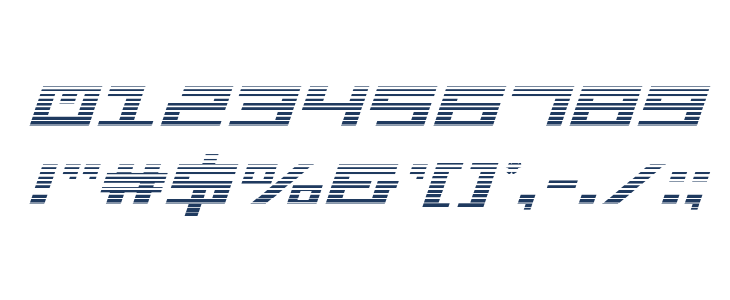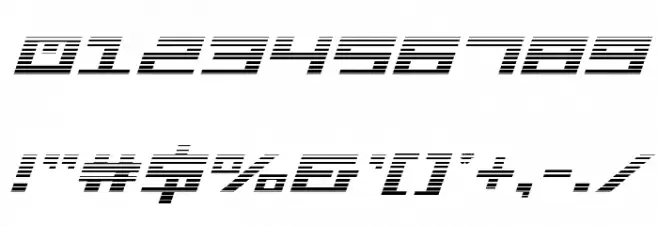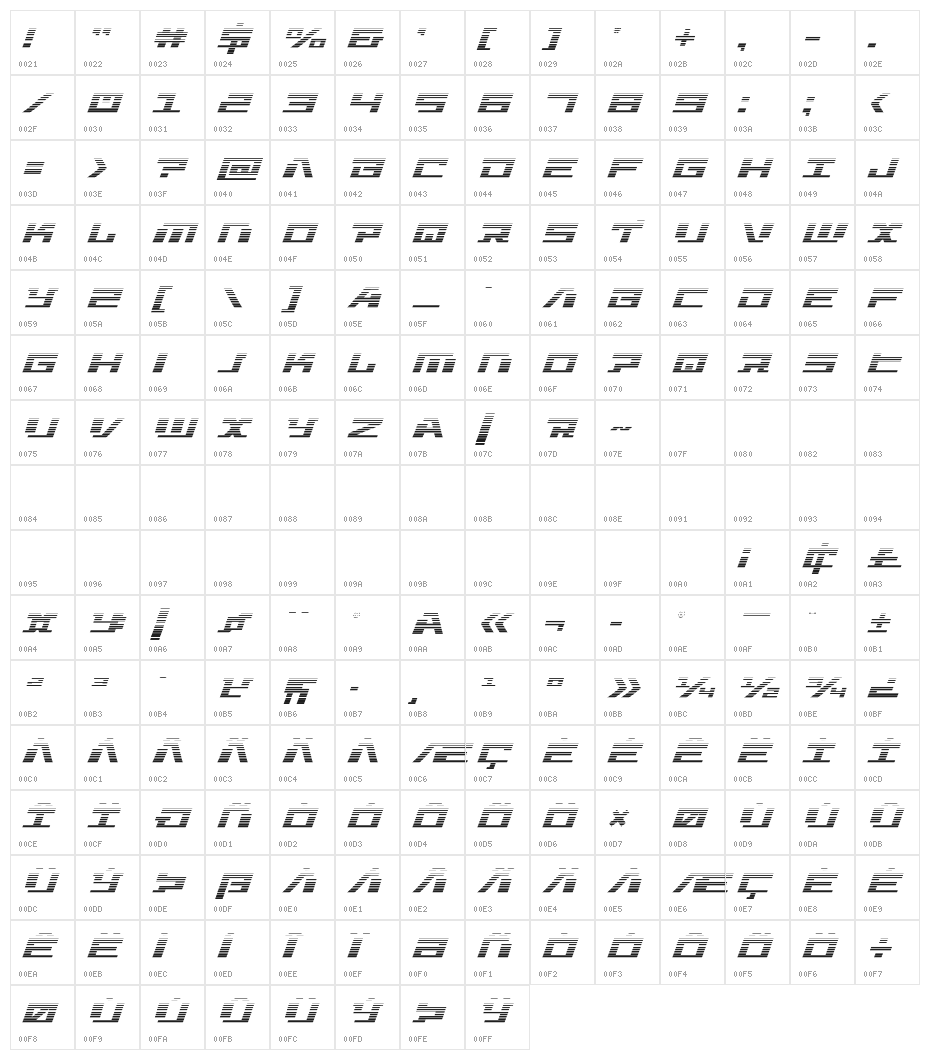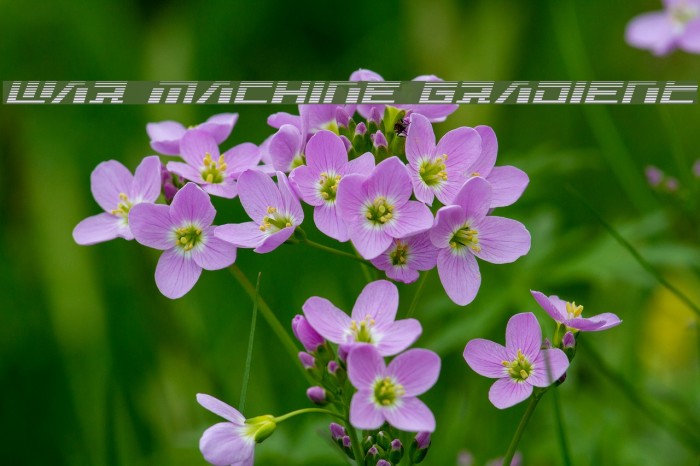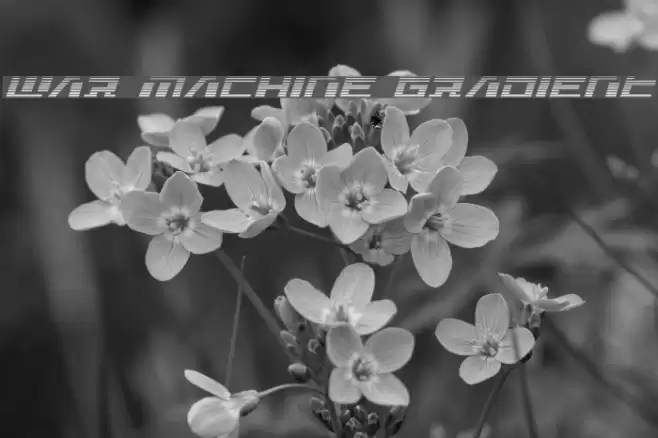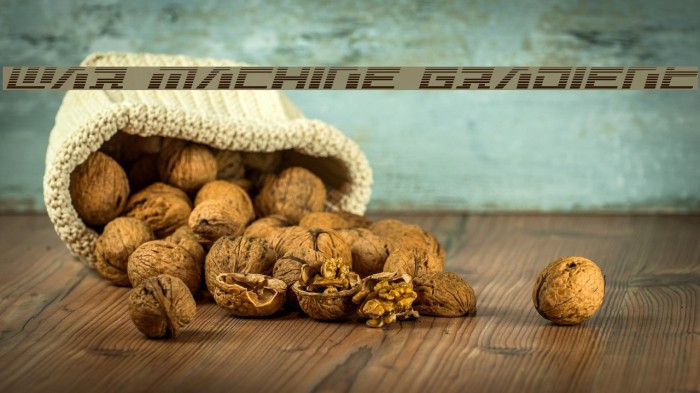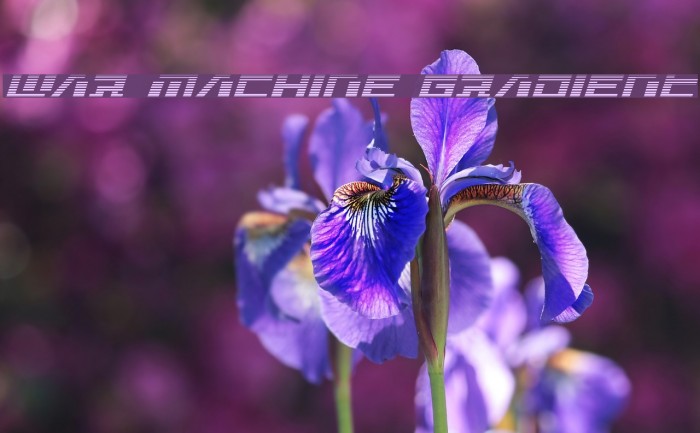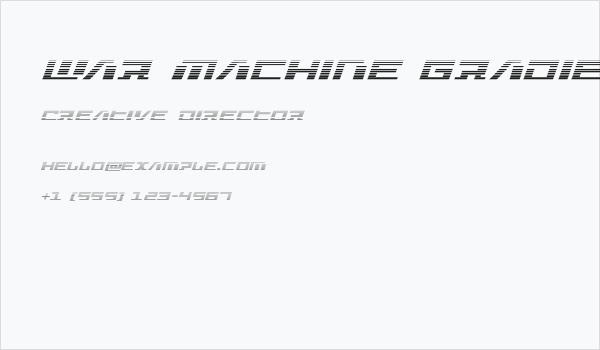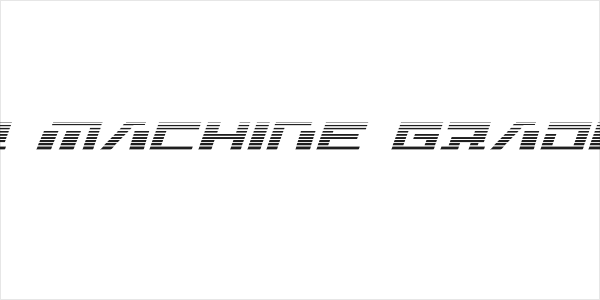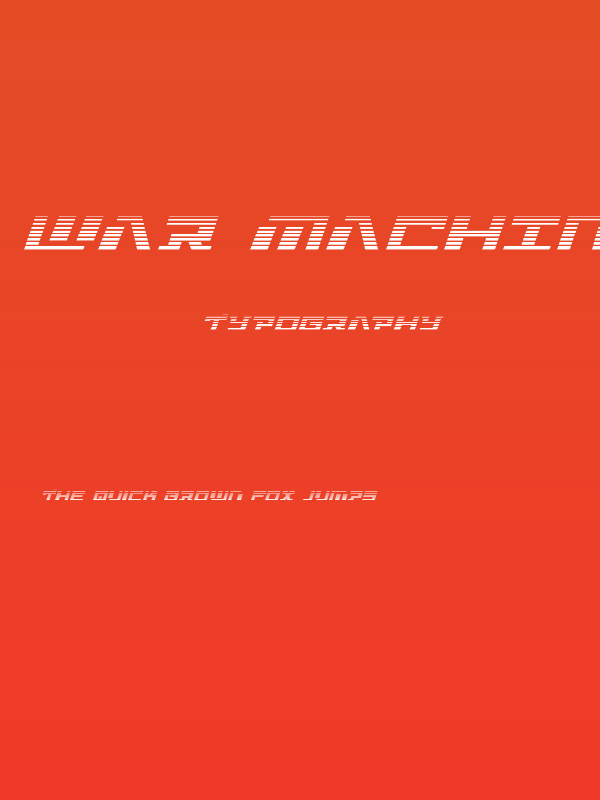
War Machine Gradient Font
War Machine Gradient Description
This font features a futuristic and dynamic design, characterized by its bold, angular shapes and horizontal line patterns that create a sense of movement and speed. The uppercase and lowercase letters maintain a consistent geometric style, with sharp edges and a uniform width. The numbers and special characters follow the same design principles, ensuring a cohesive look across all glyphs. The font's unique striped pattern adds a layer of depth and complexity, making it stand out in any design project.
| Proposed Projects | Ideal for sci-fi themed projects, video game titles, tech branding, and futuristic posters. |